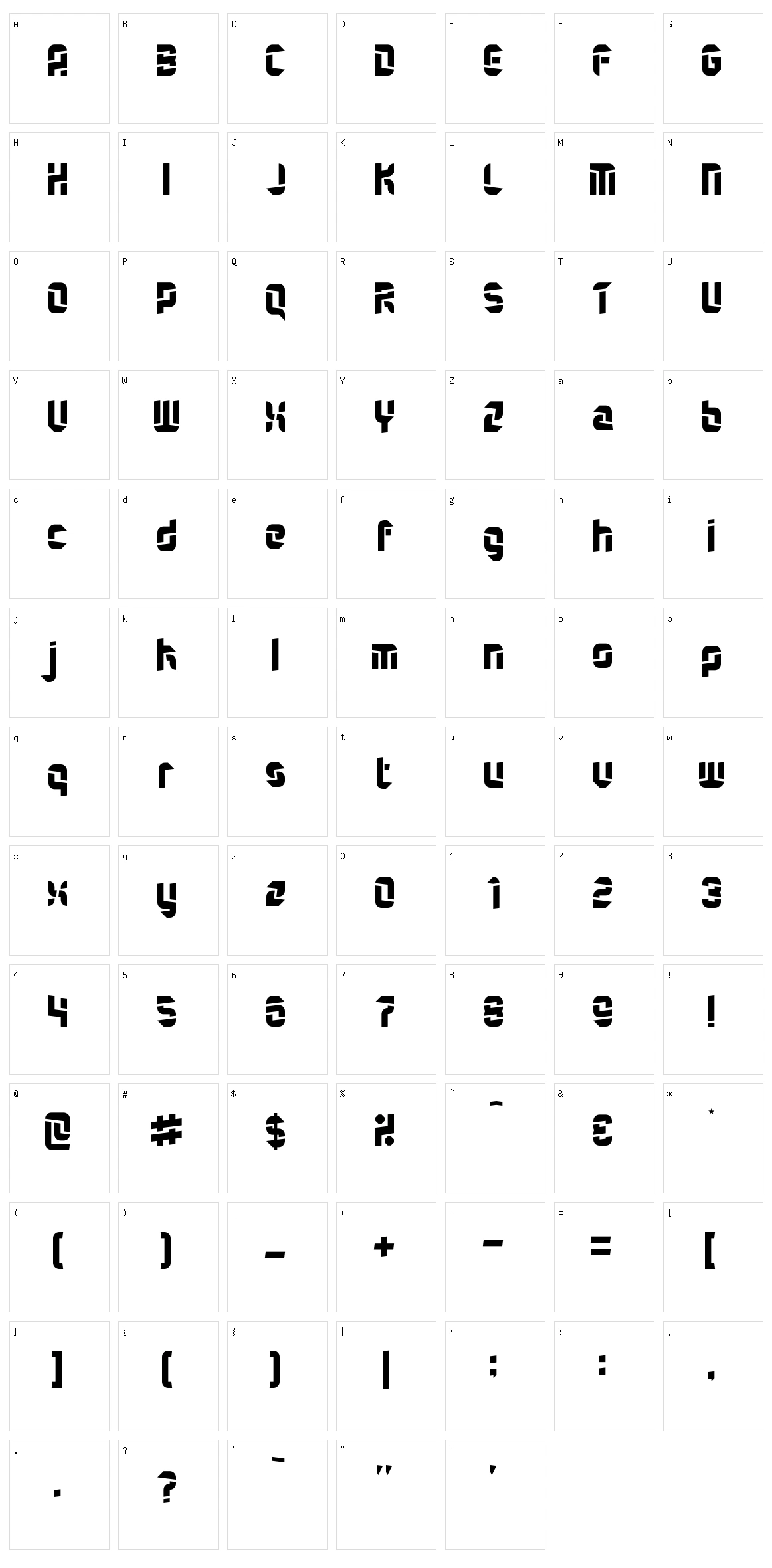
The free font Quartermaster is carefully designed by font studio four, showcasing a thoughtful balance of creativity and usability and falls under the Stencil font style. When you download the ZIP file, it contains only 6.93 KB of font files, making it lightweight and quick to download. Please review the license details below to understand permitted usage and distribution rights. If license information is not available, we recommend using this font for personal projects only or contacting the author directly for commercial usage permissions.